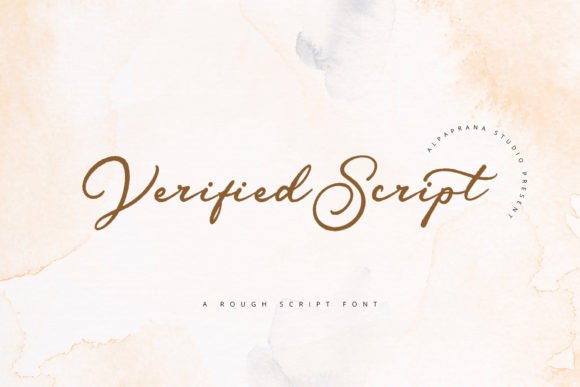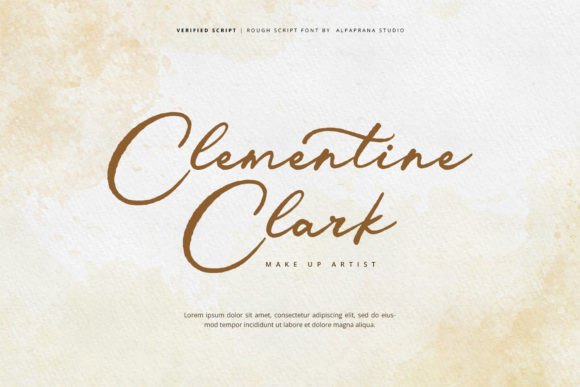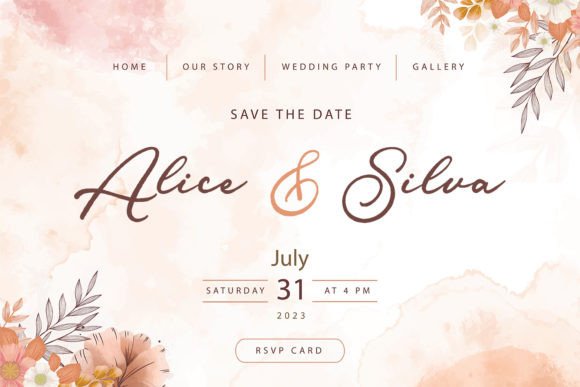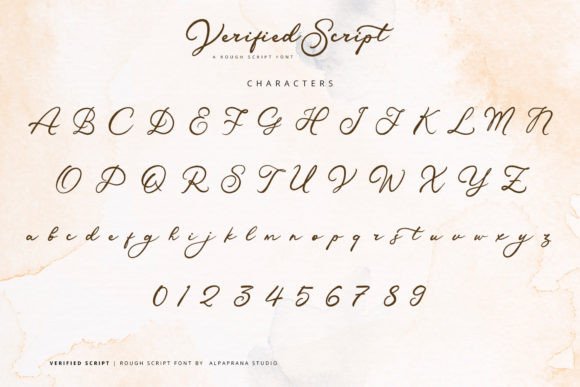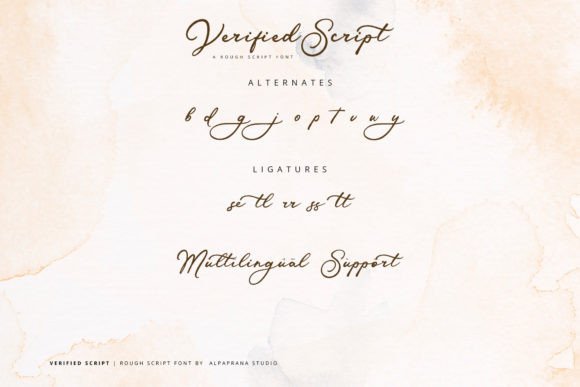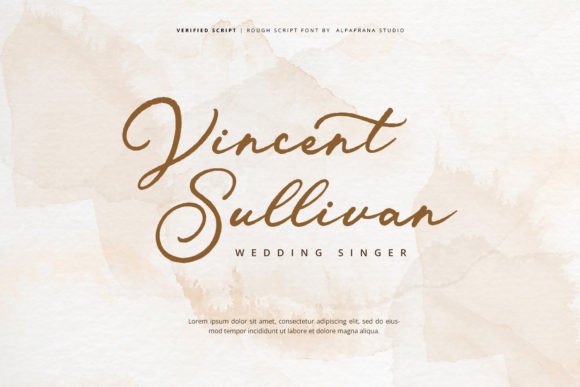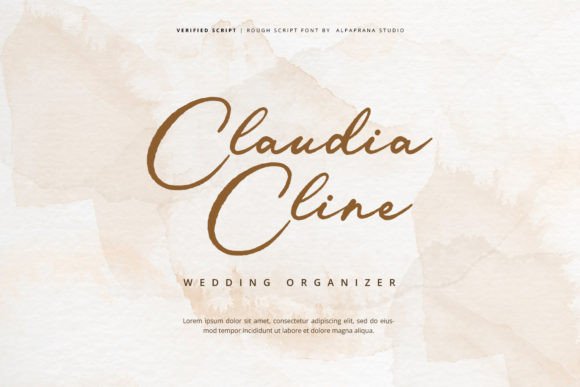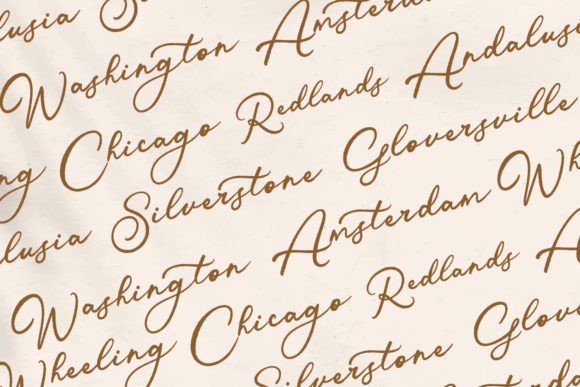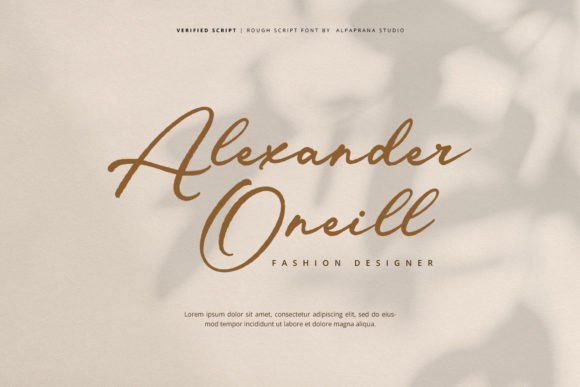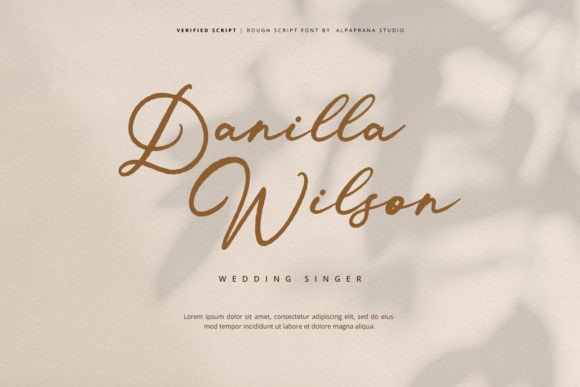
Verified Script Font
Verified Script is a rough script font that combines natural charm with a classic feel. This font is designed to bring a touch of authenticity to your projects. With its hand-drawn texture and timeless character, Verified Script will give your designs a unique and memorable look.
Whether you are working on branding, logos, posters, or any creative project, this font is a versatile choice that will never go unnoticed.
A Natural and Classic Look
Verified Script features smooth yet slightly rugged strokes that feel handcrafted and organic. Each letter flows beautifully, creating a sense of movement and energy. This natural look makes your designs feel warm, personal, and approachable.
The classic script style gives this font an elegant edge that works well for both modern and vintage aesthetics.
Perfect for Branding and Logos
If you’re building a brand that values authenticity, Verified Script is an excellent fit. Its textured style looks fantastic on logos, making your business name stand out with a signature feel.
Whether you run a boutique, a café, a photography studio, or an artisan shop, this font will reflect your brand’s unique personality and leave a lasting impression on your audience.
Make Your Designs Stand Out
Verified Script shines in many design contexts. Use it for bold headlines on posters, eye-catching quotes on social media, or product labels that need a personal touch. The font pairs well with both serif and sans-serif typefaces, allowing you to create stunning combinations with ease.
This font is also perfect for event materials like invitations, menus, and signage. It helps set the tone, whether your event is elegant, rustic, or laid-back.
Great for Apparel and Packaging
Do you design t-shirts, shopping bags, or product packaging? Verified Script adds a handcrafted feel that makes products more appealing and relatable. The font’s rough edges and organic flow create a look that feels premium without being too formal.
Use it on apparel tags, labels, or even magazine covers to bring an artistic touch to your brand visuals.
Bring Character to Every Project
With Verified Script, you can transform ordinary text into something extraordinary. Whether you want to create a signature-style logo, a heartfelt greeting card, or an impactful product label, this font has you covered.
• Logos and branding
• Clothing designs
• Posters and flyers
• Book covers
• Product packaging
• Social media graphics
• Wedding materials
Verified Script will quickly become one of your favorite go-to fonts for projects that need a touch of handcrafted beauty.